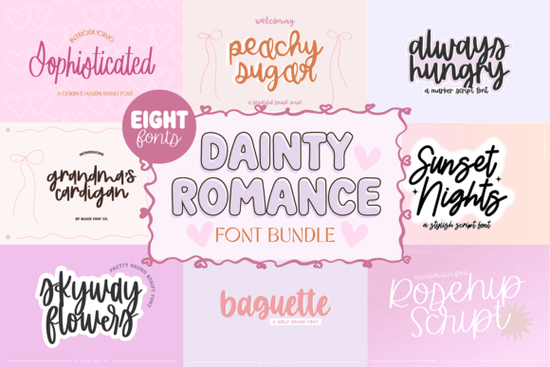
If you’ve been searching for a font bundle that brings softness, personality, and a romantic flair to your designs, the Dainty Romance Script Bundle Font might be exactly what you need. This collection includes eight carefully crafted fonts ranging from delicate scripts to expressive handwriting styles that work beautifully together or on their own. Whether you’re designing wedding invitations, custom greeting cards, branding for a boutique business, or printable wall art, these fonts add a gentle, artistic touch without overwhelming your layout.
What makes this bundle stand out for creatives?
Unlike single-style font packs, the Dainty Romance bundle offers variety while maintaining a cohesive aesthetic. You’ll find upright scripts for clean readability, swirly connected letters for dramatic headlines, and looser handwritten styles for casual charm. This flexibility means you can mix and match weights and moods within one project like pairing a formal script for a couple’s names with a playful handwritten style for event details.
For print-on-demand sellers, this versatility is especially useful. One bundle can serve multiple niches: bridal showers, baby announcements, café menus, or even cozy lifestyle branding. And because all fonts share a similar design language soft curves, subtle flourishes, and balanced spacing they create harmony across product lines.
How does it compare to other script bundles?
Each font in the bundle has been optimized for both digital and print use, with clear letterforms that hold up even at smaller sizes. Many include alternate characters and ligatures (accessible through OpenType features), so you can add subtle variation to repeated letters great for avoiding that “too-perfect” computer-generated look.
Which fonts are included and how can you use them?
The bundle features eight distinct typefaces, each with its own personality:
- DaintyRomanceScript – A flowing, connected script perfect for elegant headers.
- SweetWhisper – Light and airy, great for delicate overlays or watercolor-style designs.
- LovelyNote – A natural handwriting style that mimics pen-on-paper for authenticity.
- TenderInk – Slightly bolder with gentle swashes, ideal for short quotes or logos.
- BlushScript – Features soft terminals and open counters for high legibility.
- CherishHand – Casual and friendly, excellent for recipe cards or journaling kits.
- VelvetLetter – A semi-connected style with vintage undertones.
- AmourScript – Dramatic flourishes for standout wedding or anniversary pieces.
These fonts support multiple languages and include basic punctuation and numerals, making them practical for real-world use not just decorative accents.
Who should consider this bundle?
This collection shines for:
- Wedding stationery designers creating save-the-dates, menus, or place cards.
- Etsy sellers offering printable downloads or digital templates.
- Small business owners building a soft, approachable brand identity (think bakeries, florists, or skincare lines).
- Crafters personalizing mugs, tote bags, or vinyl decals with heartfelt messages.
- Hobbyists making scrapbooks, greeting cards, or framed gifts for loved ones.
Because the fonts avoid extreme thinness or overly ornate details, they’re also reliable for cutting machines like Cricut or Silhouette just be sure to weld or simplify paths where needed.
Before you buy: a quick checklist
- Do your projects lean toward romantic, soft, or feminine themes?
- Do you need multiple script styles that still feel like they belong together?
If you answered “yes” to most of these, the Dainty Romance Script Bundle Font could become a go-to resource in your creative toolkit offering both beauty and practicality without requiring constant font-hunting.